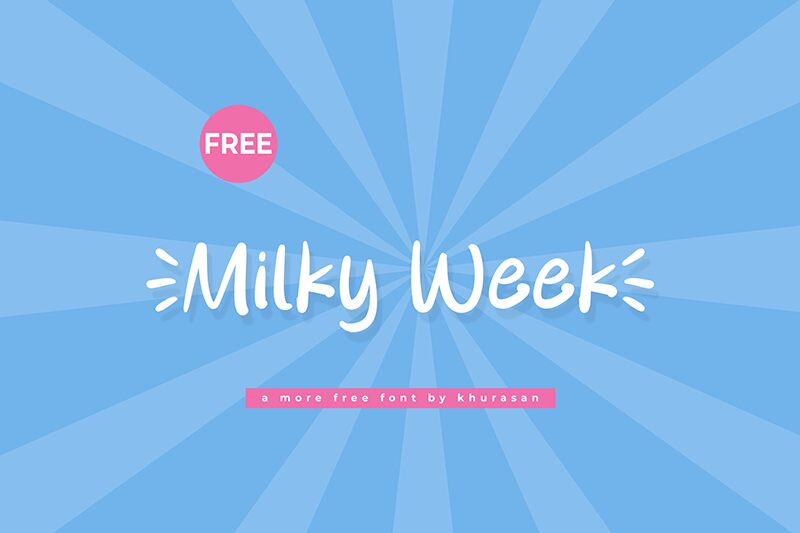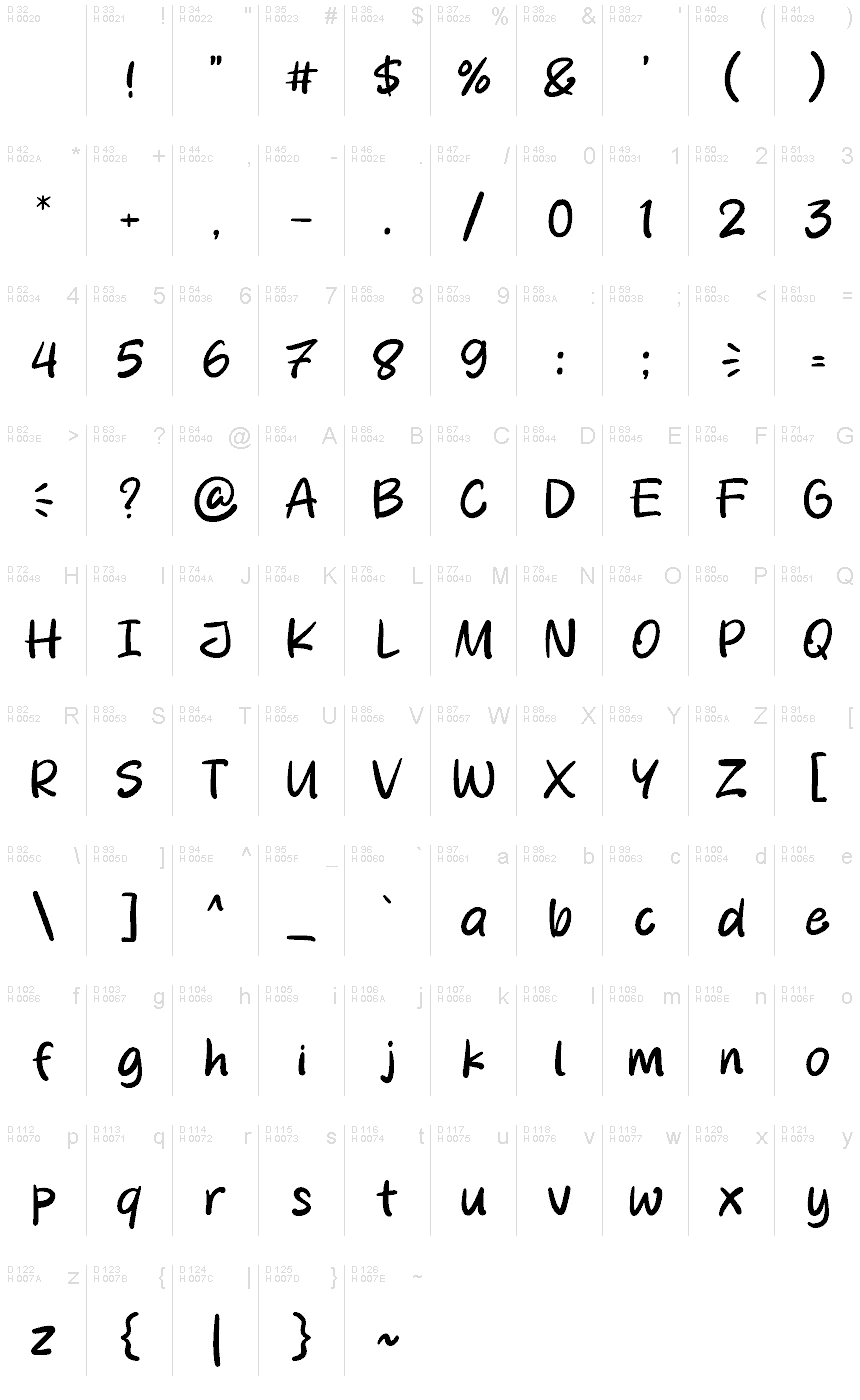
Milky Week
Milky Week font, designed by Khurasan, is an exceptional contemporary display typeface featuring a casual handwritten style. It carries an expressive and organic feel that connects it directly to nature. Although the font prioritizes uniqueness, it shines through with simplicity and approachability of forms.
This free handwritten font has absolutely no limits thanks to its applicability in brochures, magazines, presentations. Design websites, applications, or headlines that stand out just as much as your logotypes and branding designs.